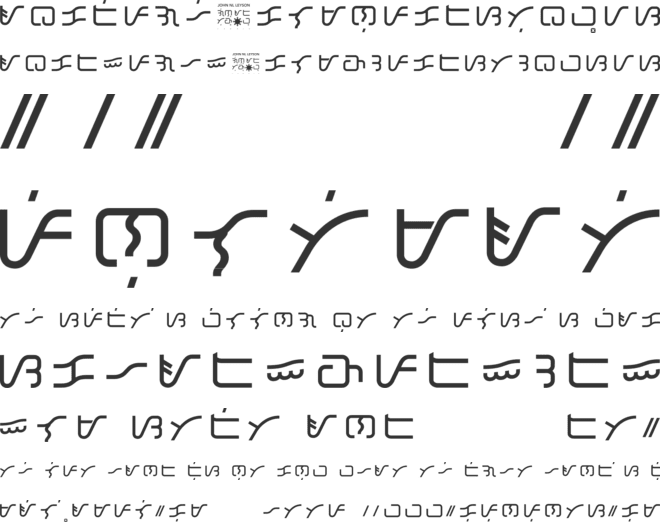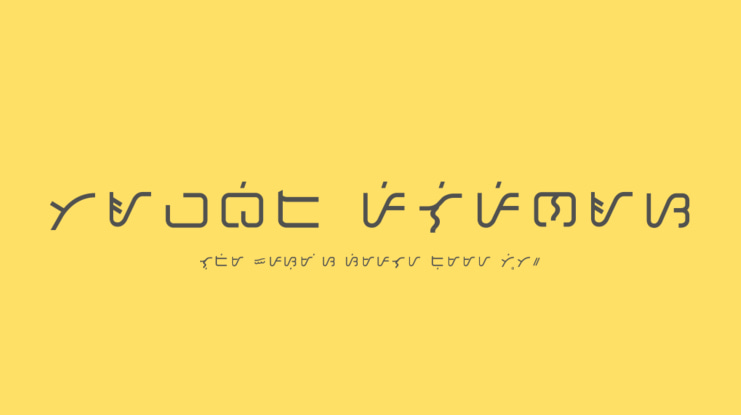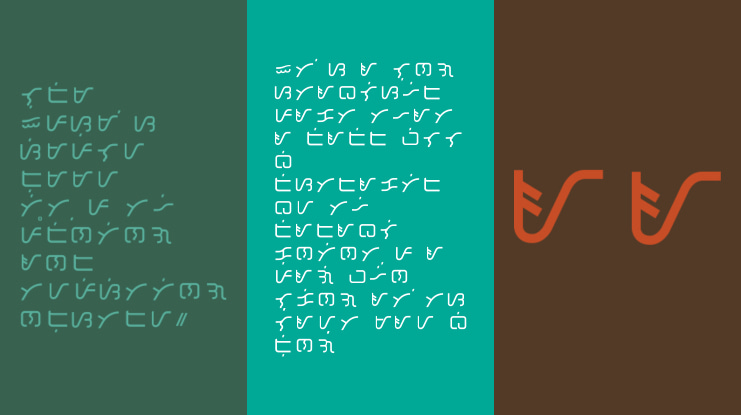
Tawbid Pilipinas 21 Font
John NL Leyson
TAWBID Pilipinas 21 (Regular) is an ultra-modern Baybayin font created and designed by John NL Leyson for creative applications. The font is FREE for Personal, Educational and Non-commercial use. For any inquiries contact the designer:  @johnvanleyson